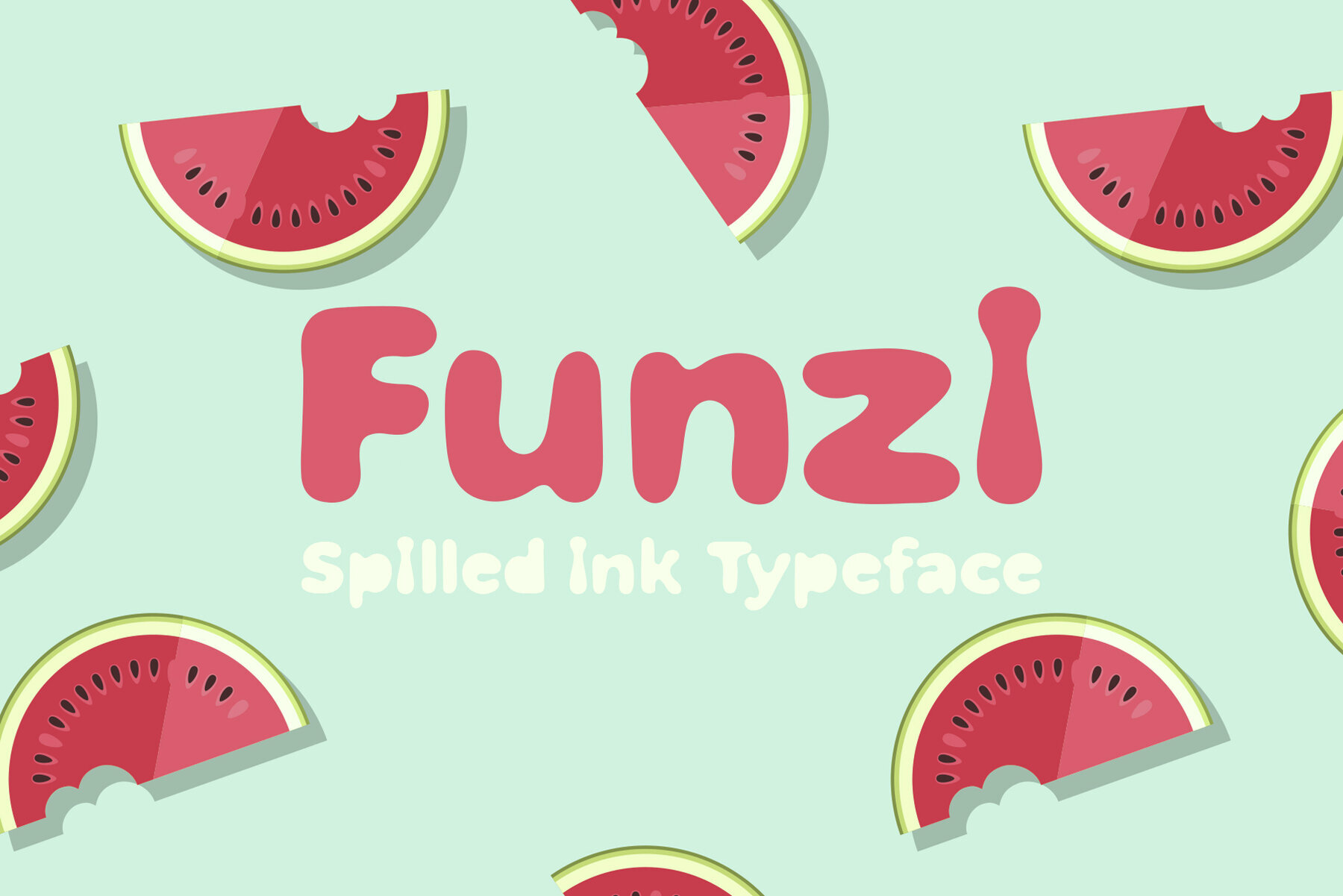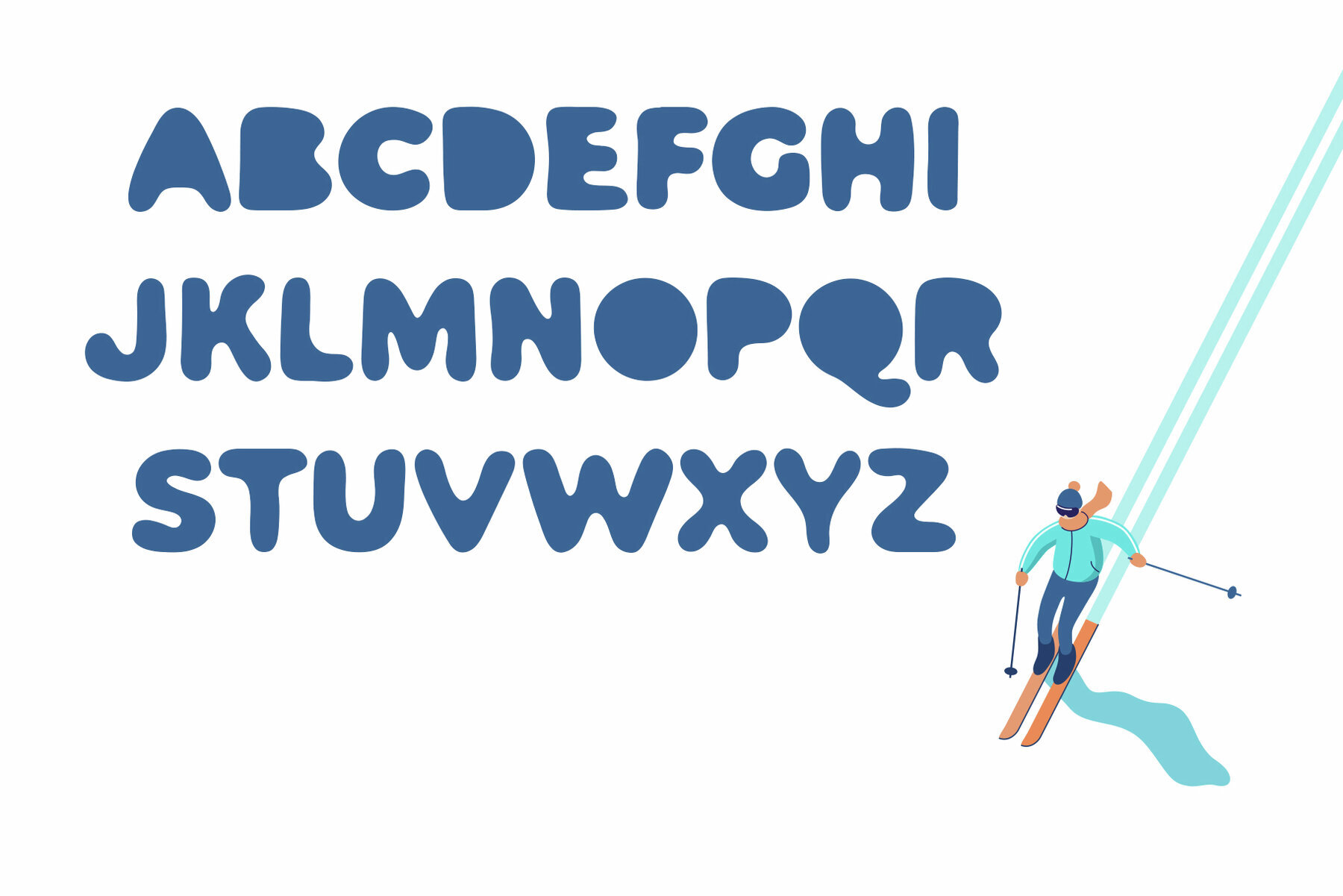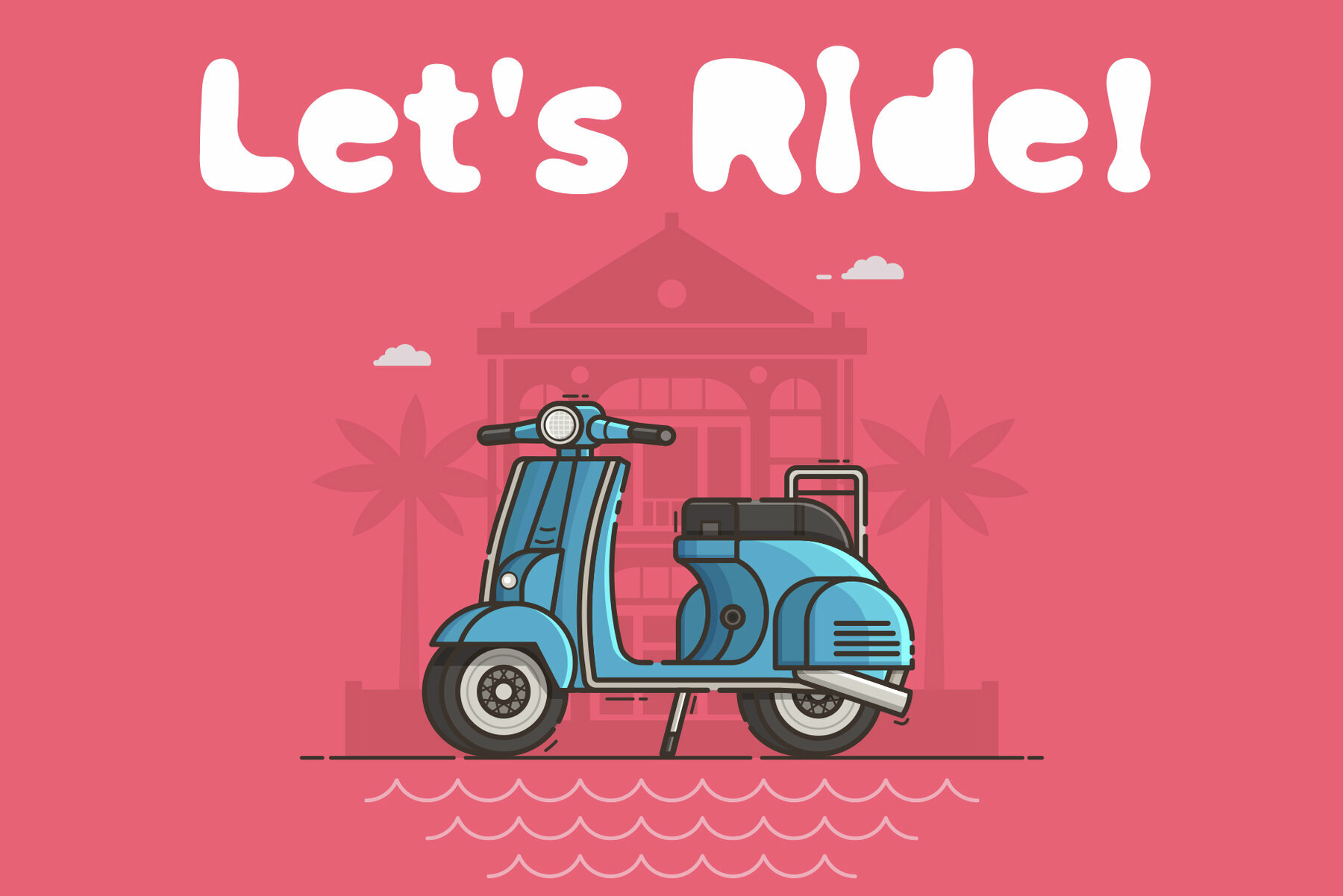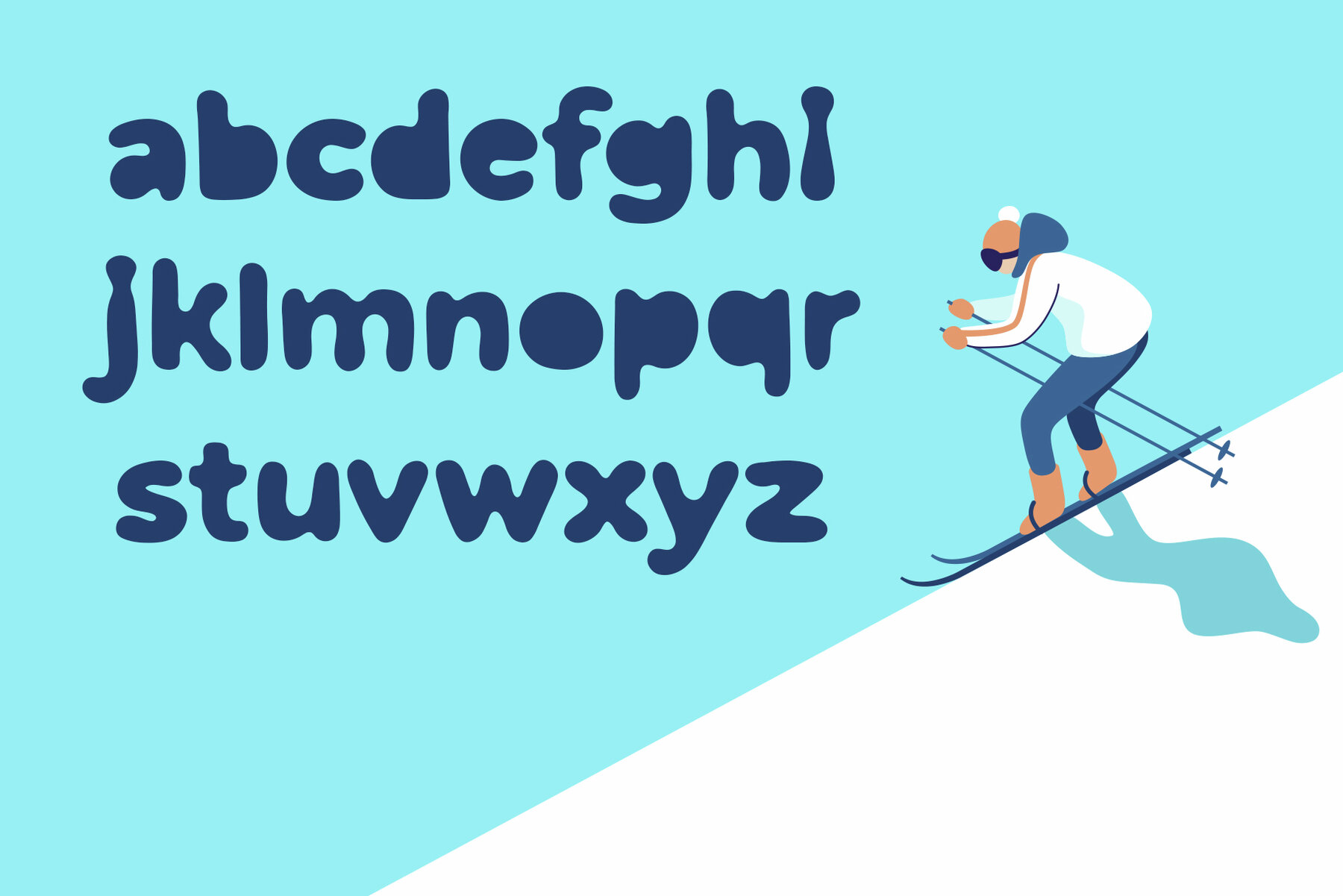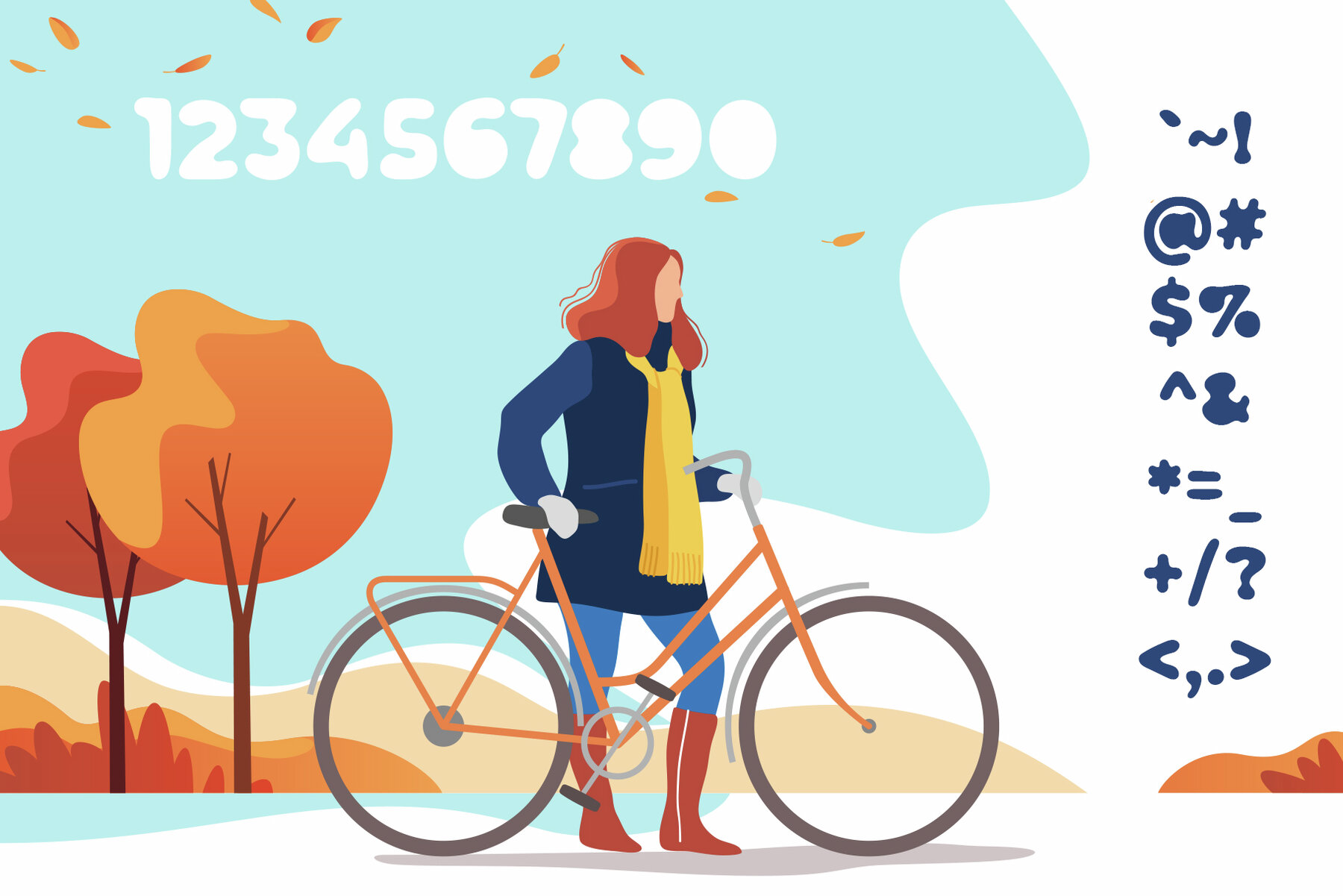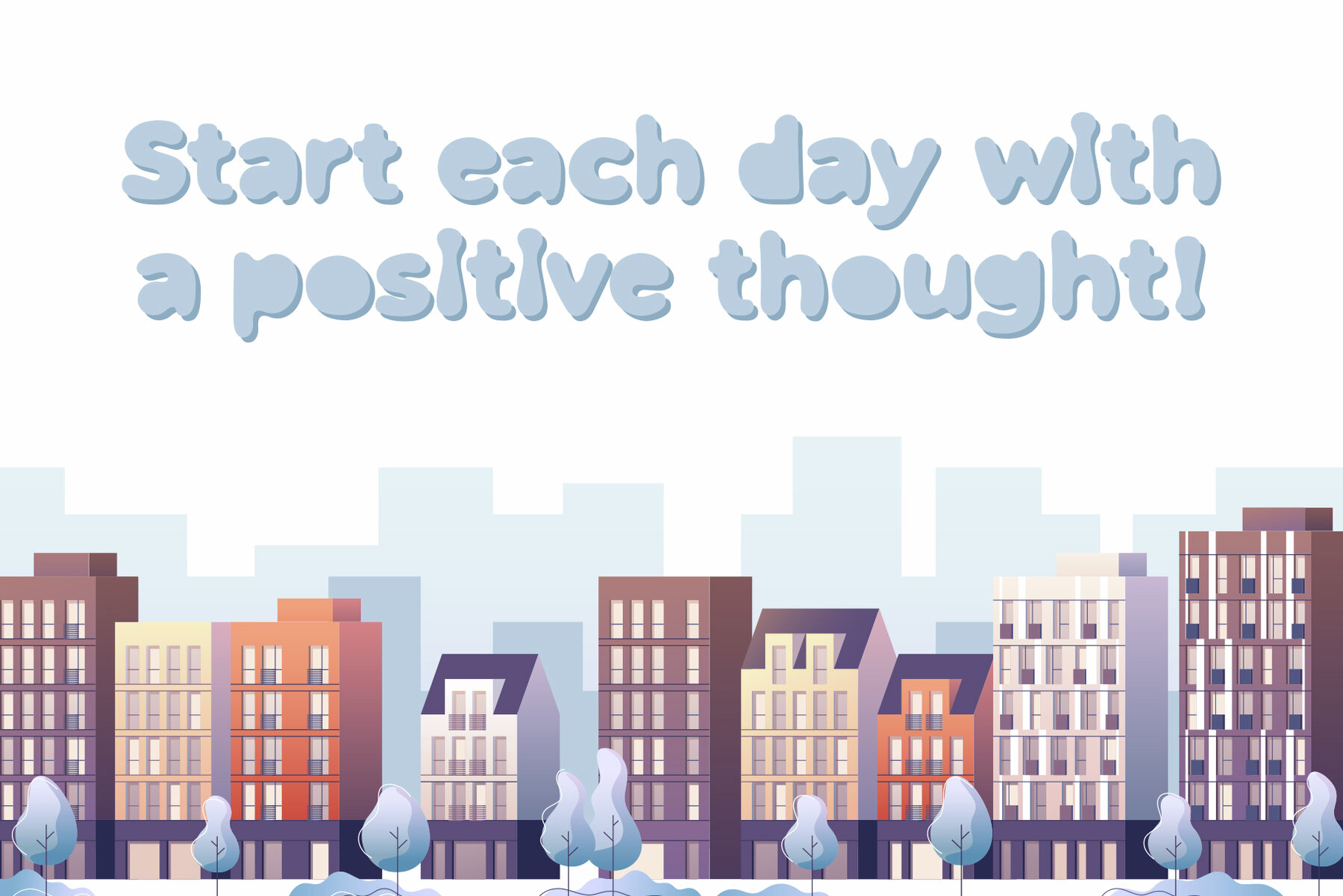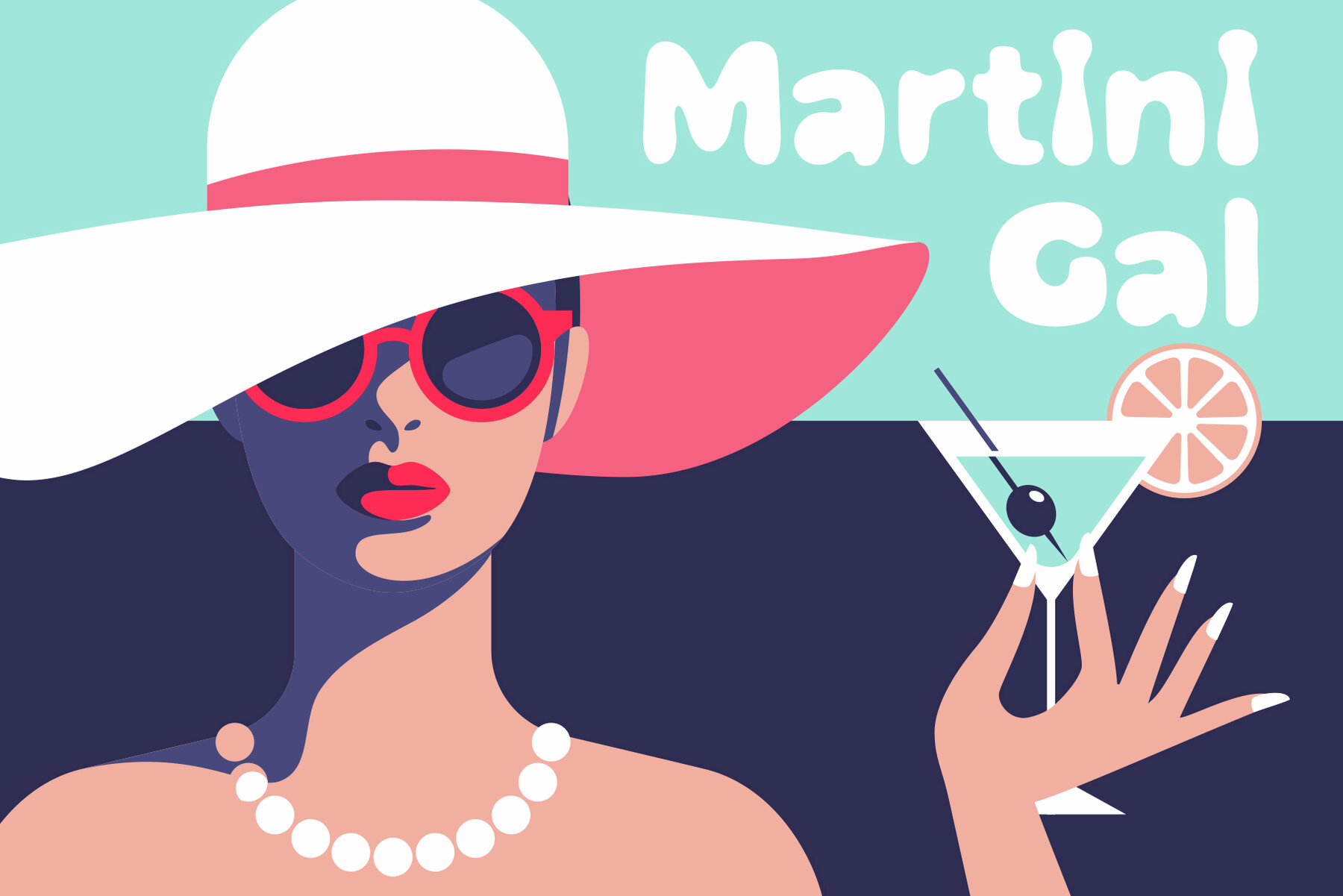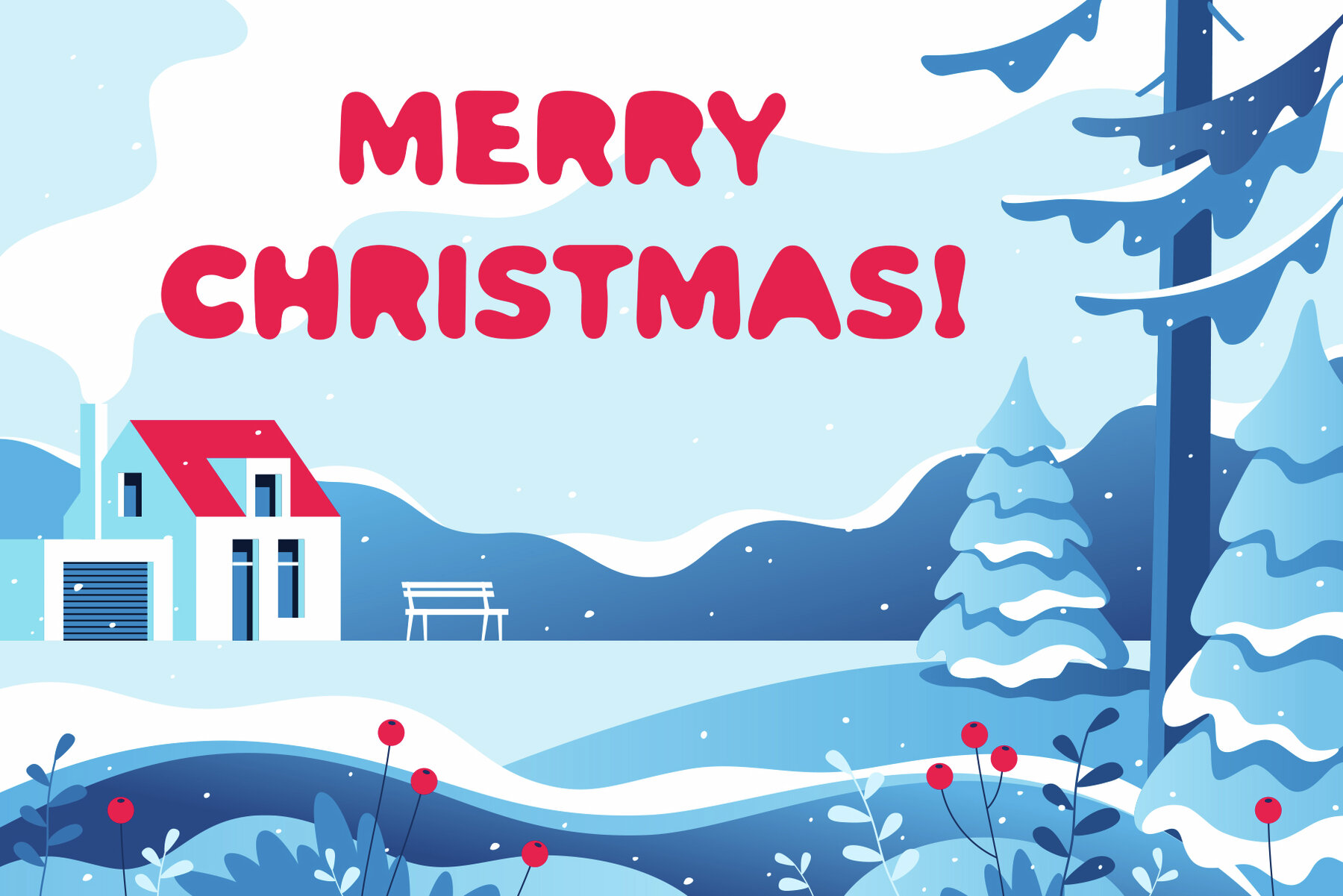
Funzi Font
Funzi is a handwritten bold typeface, evoking the playful spontaneity of spilled ink spreading across paper. The font's smooth, rounded corners create a comforting and inviting visual appeal, making it well-suited for a variety of design projects.
Whether you're crafting greeting cards, children's books, quotes, posters, invitations, or business cards, Funzi offers a welcoming touch. Its bold, organic shapes provide a distinctive personality that enhances presentations, ensuring your message stands out with charm and warmth.